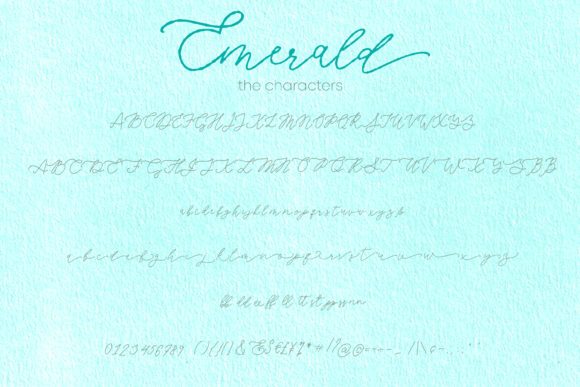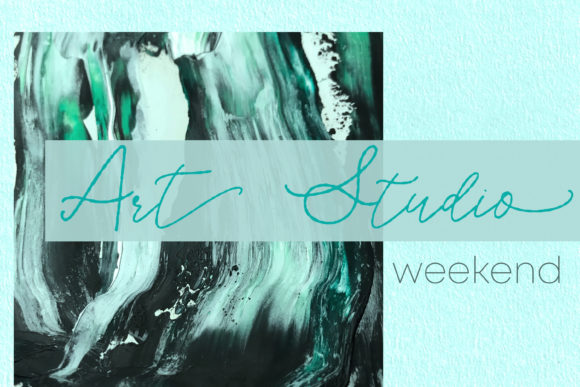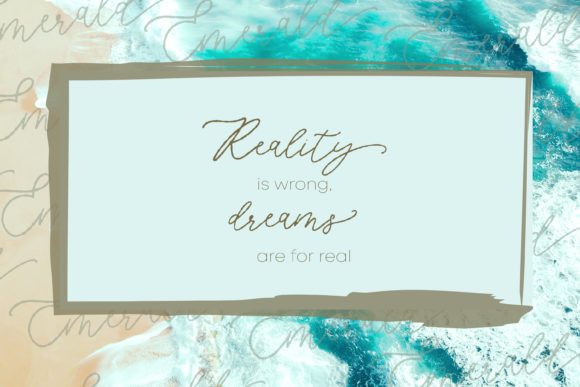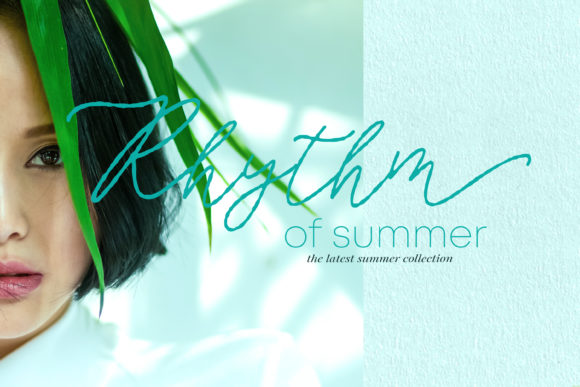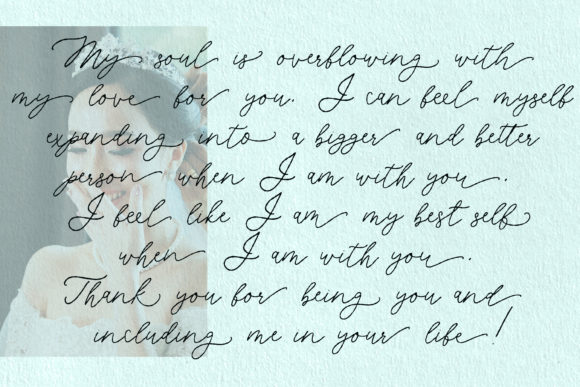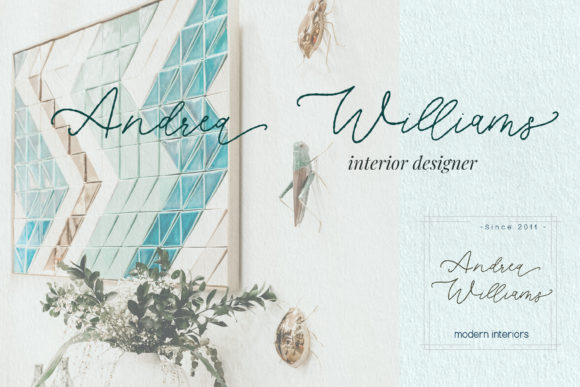
Emerald Font
About Emerald Font
Emerald is slightly imperfect, but nevertheless stunning. This script is the perfect font for adding that unique spark to any design.